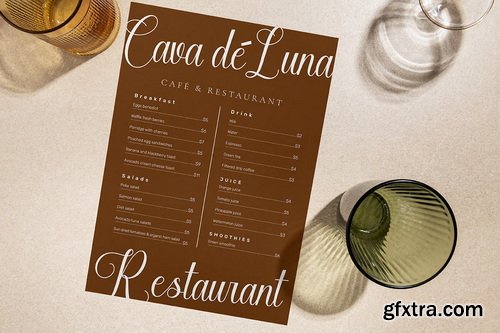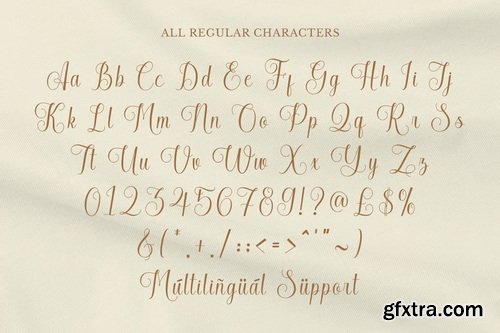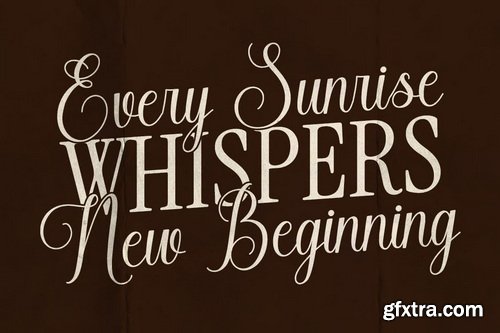
Fairyland Wedding Font
Fairyland is a graceful script handwritten font designed to add a magical, flowing touch to any creative project. Each character is carefully crafted with delicate swashes and sweeping strokes that evoke a sense of romance and whimsy. This font is perfect for capturing the spirit of special occasions and festive moments with a handwritten style that feels both personal and sophisticated. Every letter in Fairyland features unique beginning and ending swash tails, creating smooth transitions and artistic flair that elevate your designs. With an extensive collection of alternate characters and decorative swashes, customization becomes effortless—allowing for countless combinations that bring your ideas to life with creativity and elegance.